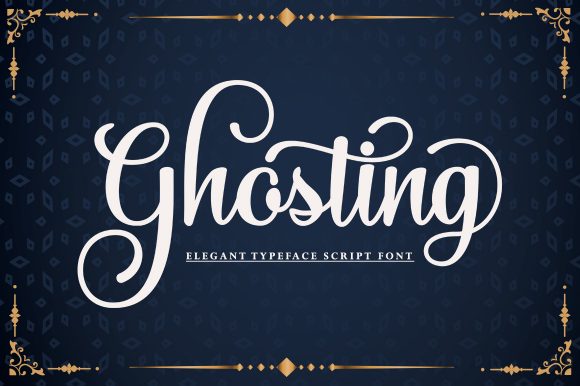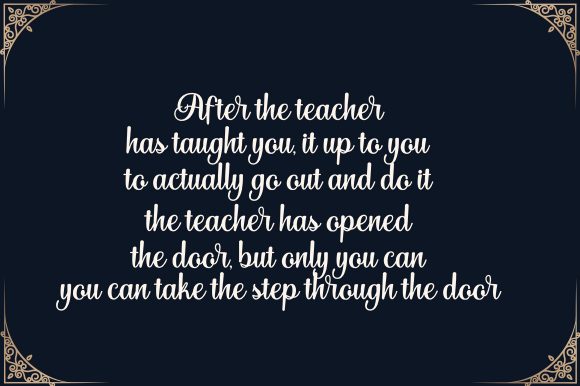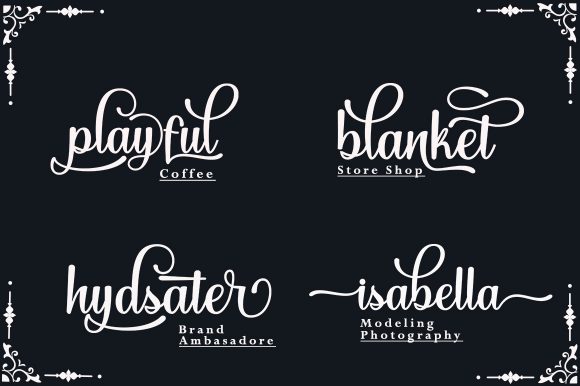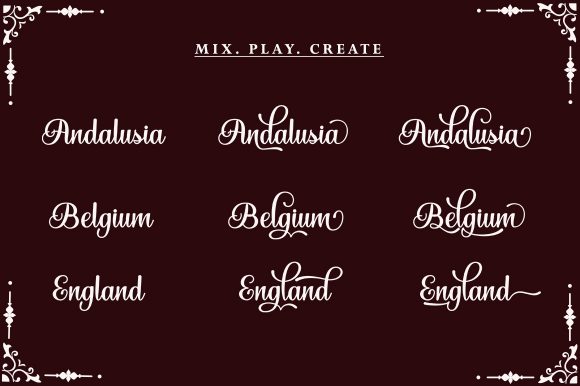
Ghosting Font: Elegant Script for Wedding Invitations & Branding
About the Ghosting Font
Step up your design game with Ghosting Font, a font that exudes confidence and style. Ghosting is an assertive and distinct script font. Expertly designed to make your creation look out of this world, this font will look gorgeous on a variety of ideas. This font is PUA encoded which means you can access all of the glyphs and swashes with ease!
Ghosting excels in headline applications, short impactful statements, and branding projects requiring a touch of assertive elegance. Its unique swashes are ideal for logos, invitations, and short marketing materials where a dramatic flair is desired. However, its highly stylized nature makes it unsuitable for body text or long-form content; readability suffers at smaller sizes.
For optimal visual balance, pair Ghosting with a clean sans-serif like Montserrat or a geometric sans-serif such as Futura for a modern contrast. Alternatively, a classic serif like Garamond or a more contemporary serif such as Playfair Display could provide a sophisticated counterpoint to its script form.
Ghosting’s overall personality is bold and sophisticated, yet retains a touch of playfulness thanks to its swashes. This makes it particularly well-suited for brands targeting a discerning audience seeking a memorable and stylish aesthetic.
Ghosting Font Usage Examples
Ghosting Font Example